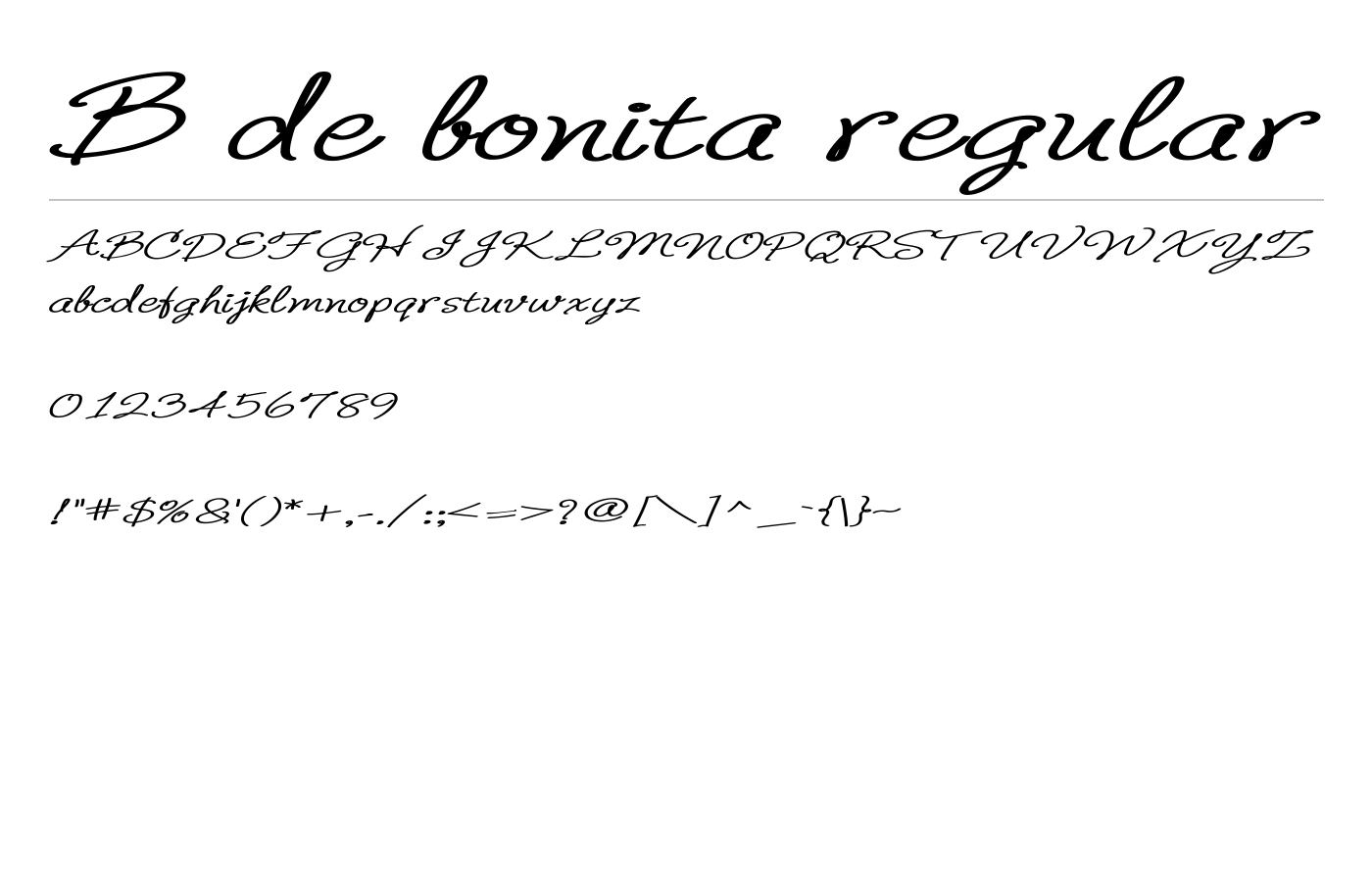
B de bonita is an elegant script font with a smooth and flowing style that mimics handwritten calligraphy. It features moderate contrast in stroke weight, slender letterforms, and a classic cursive flair, making it perfect for designs seeking a refined and graceful appearance. This font is ideal for invitations, branding, and decorative headlines where a touch of sophistication and warmth is desired.
B de bonita Font
About B de bonita Font